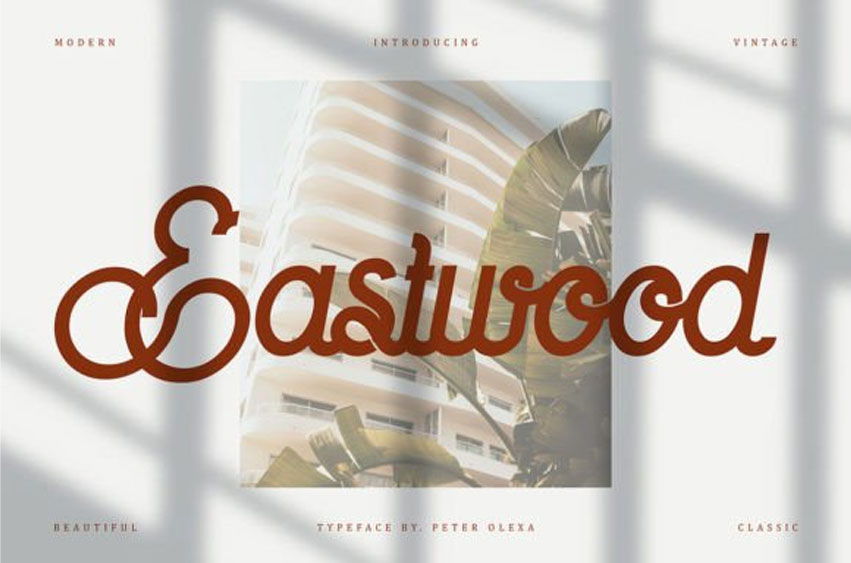
Eastwood Font is a retro, monoline handwritten font.
Its casual charm makes it appear wonderfully down-to-earth, readable, and, ultimately, incredibly versatile.